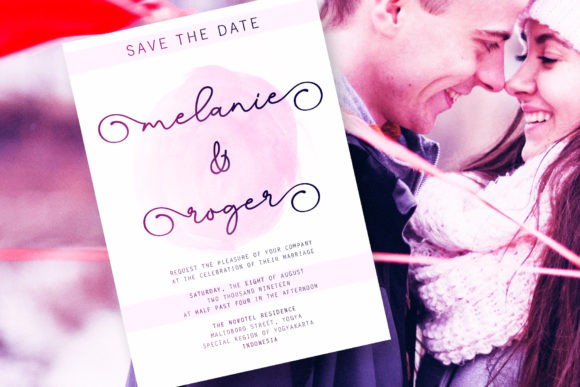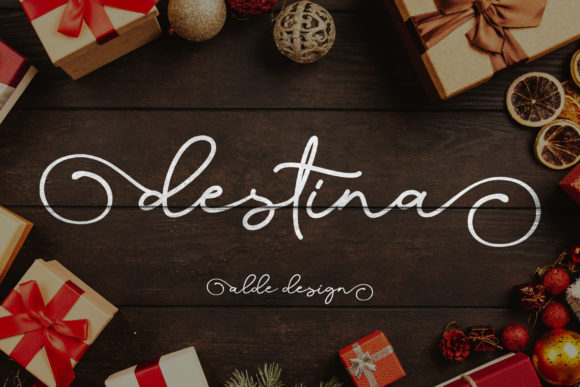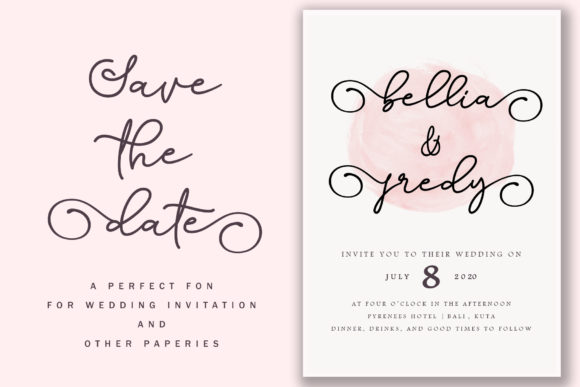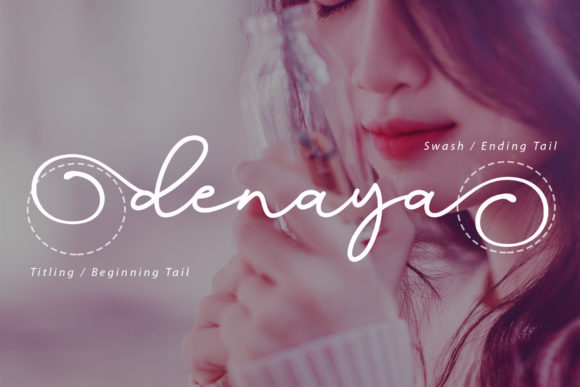
Introducing Dinila Font: The Quirky and Fashionable Handwritten Font for Your Design Projects
Are you tired of using the same old fonts for your design projects? Do you want to add a personal touch that sets your work apart from the rest? Look no further than Dinila Font, a fashionable and quirky handwritten font that’s sure to elevate your designs to the next level. With its unique style and authentic feel, Dinila Font is the perfect choice for designers and crafters looking to add a touch of personality to their work.
What Makes Dinila Font So Special?
Dinila Font is a one-of-a-kind handwritten font that’s been carefully crafted to bring a sense of whimsy and charm to your designs. Its quirky and fashionable style is perfect for a wide range of projects, from branding and packaging to social media graphics and blog posts. Whether you’re a professional designer or a DIY crafter, Dinila Font is sure to inspire your creativity and help you stand out from the crowd.
Key Features of Dinila Font
- Unique and Quirky Style: Dinila Font has a distinctive and eye-catching style that’s sure to grab attention.
- Handwritten with Love: Each letter has been carefully handcrafted to bring a sense of warmth and personality to your designs.
- Fashionable and On-Trend: Dinila Font is perfect for designers and crafters who want to stay ahead of the curve.
- Authentic and Personal Touch: Add a touch of personality to your designs with Dinila Font’s authentic and handmade feel.
How to Use Dinila Font in Your Design Projects
Dinila Font is incredibly versatile and can be used in a wide range of design projects. Here are just a few ideas to get you started:
- Branding and Packaging: Use Dinila Font to add a personal touch to your brand’s logo, packaging, and marketing materials.
- Social Media Graphics: Create eye-catching social media graphics with Dinila Font that are sure to grab attention.
- Blog Posts and Articles: Add a touch of personality to your blog posts and articles with Dinila Font.
- DIY Crafts and Projects: Use Dinila Font to add a personal touch to your DIY crafts and projects, such as handmade cards and gift tags.
Tips for Getting the Most Out of Dinila Font
Here are a few tips for getting the most out of Dinila Font:
- Experiment with Different Colors: Try pairing Dinila Font with different colors and textures to create a unique look.
- Mix and Match with Other Fonts: Combine Dinila Font with other fonts to create a visually interesting design.
- Use it for Headings and Titles: Use Dinila Font to add a touch of personality to your headings and titles.